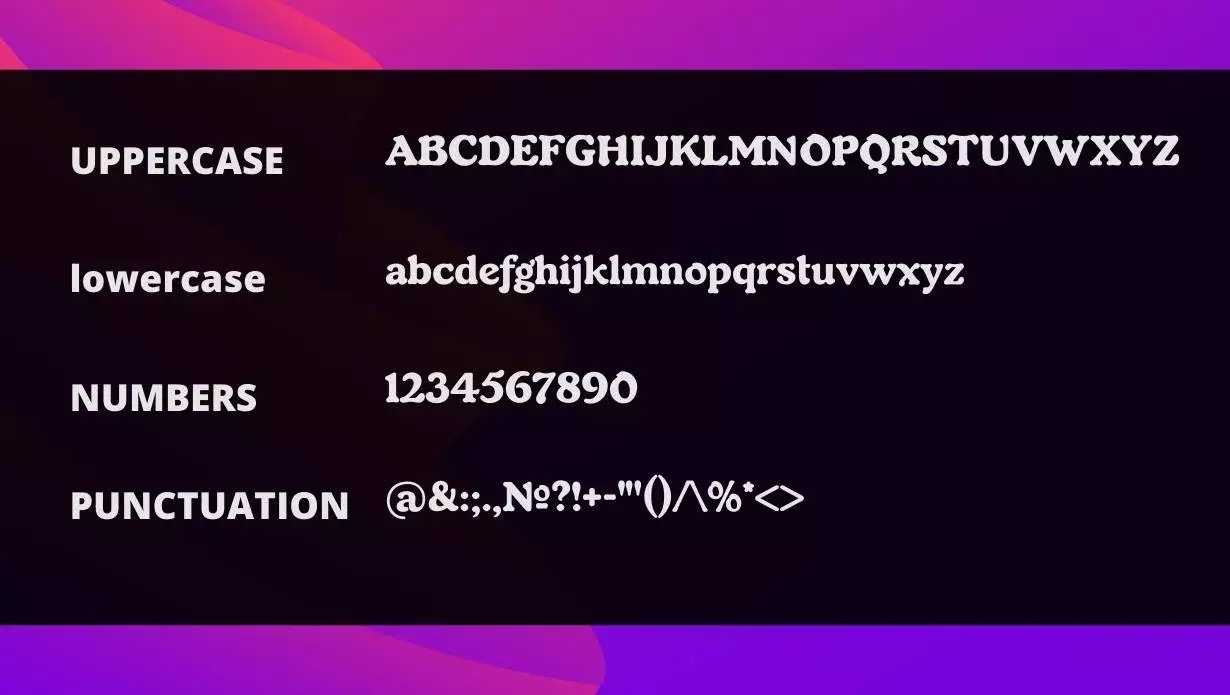
Robur Font is a serif typeface designed by Francesco Simoncini and released through the Italian type foundry Robur Type in 2013.
This typeface is very similar to the chisel font with the same connected letterforms and high-quality graphics you can try for your valuable designs.
View of Robur Font
Robur Font Info
| Name | Robur Font |
| Designer | Francesco Simoncini |
| Style | Serif |